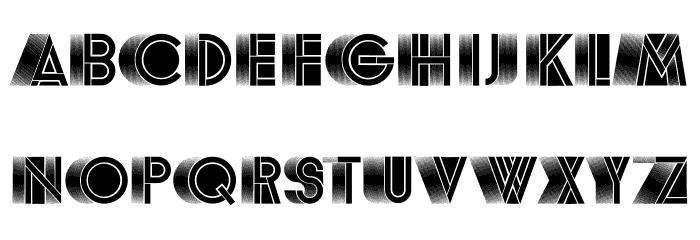
Rosemary Garden Filled Regular Font
This font features a bold and decorative style with a unique filled pattern that creates a striking visual effect. The letters are constructed with geometric precision, incorporating sharp angles and clean lines. The filled areas within each character add depth and texture, making the font stand out. The overall design is modern and artistic, suitable for creative projects that require a distinctive and eye-catching typeface. The uppercase letters are consistent in height and width, providing a uniform appearance across the alphabet.
A bold, decorative font with geometric precision and filled patterns.
- Proposed Projects: Ideal for posters, branding, album covers, and any project needing a bold statement.